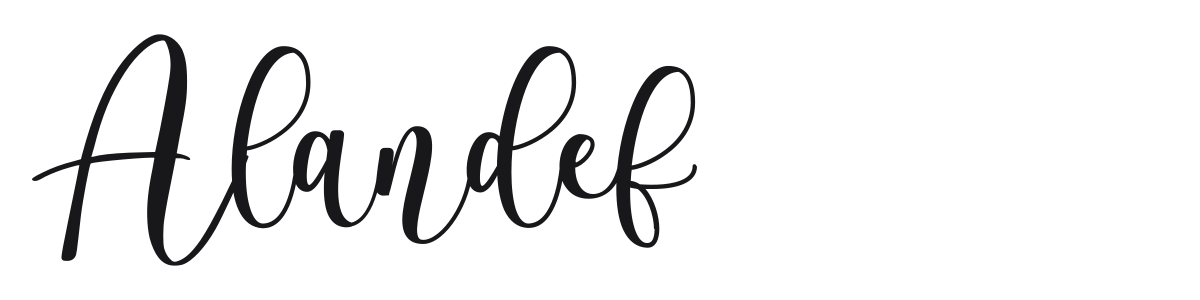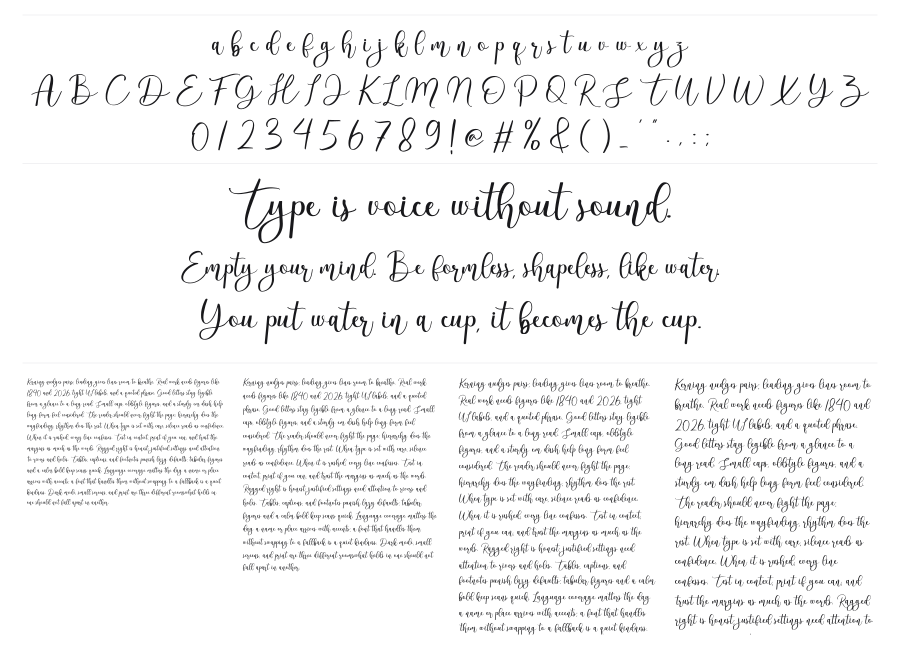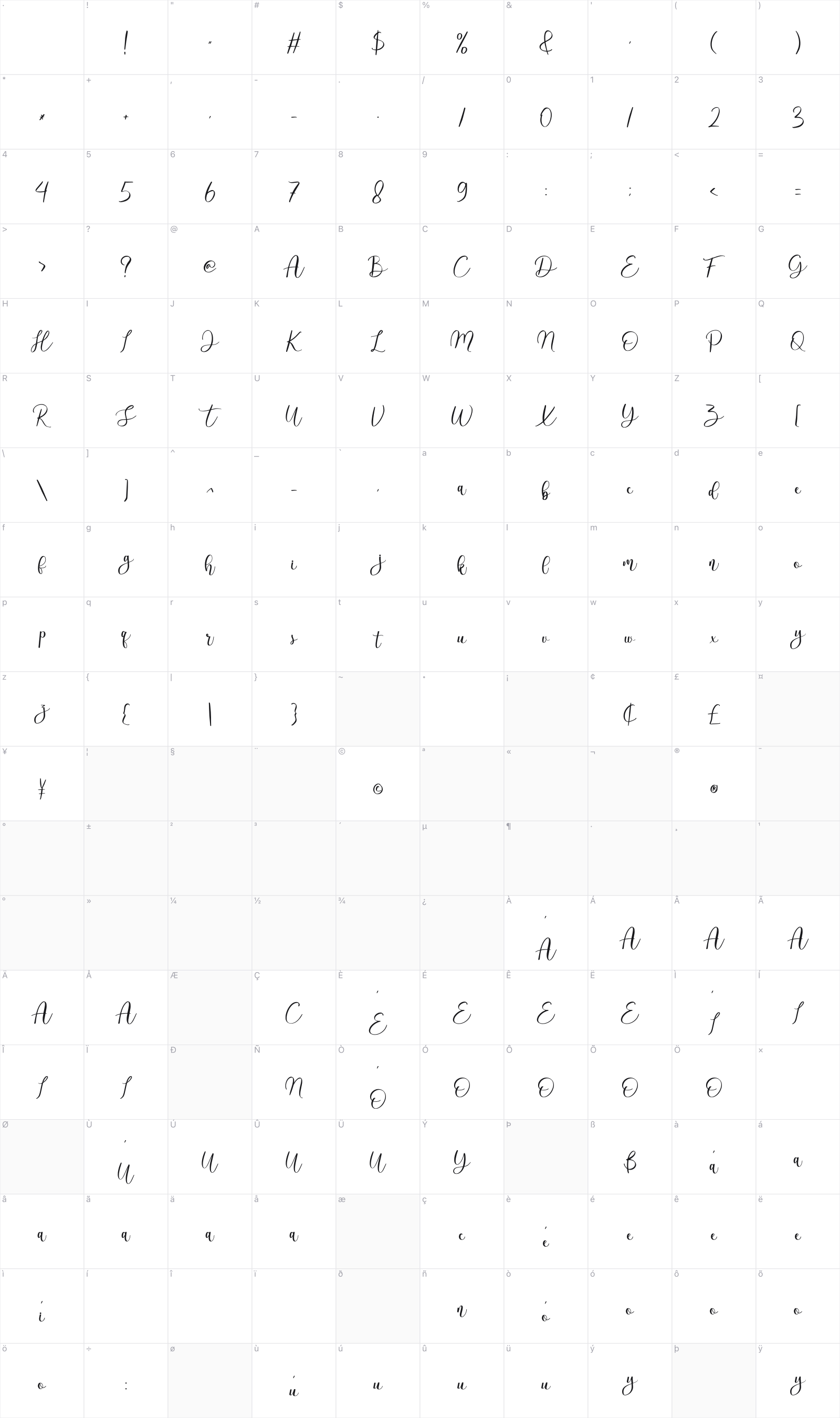
Alandef
Alandef is a flowing casual script with a lively bouncing baseline and generous looping strokes. The contrast between thick downstrokes and delicate hairline upstrokes gives it a calligraphic richness without feeling stiff or formal. It suits wedding stationery, lifestyle branding, and any project that needs warmth and personality at headline sizes.